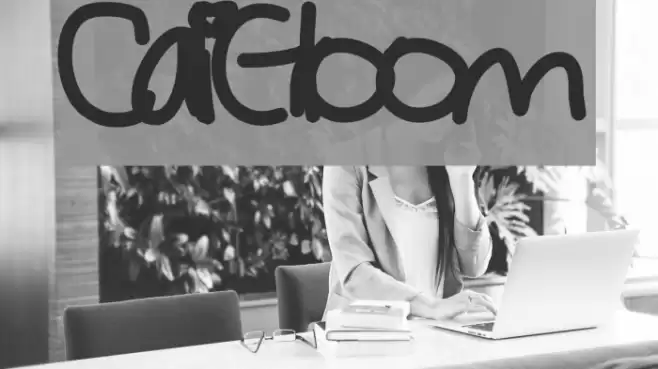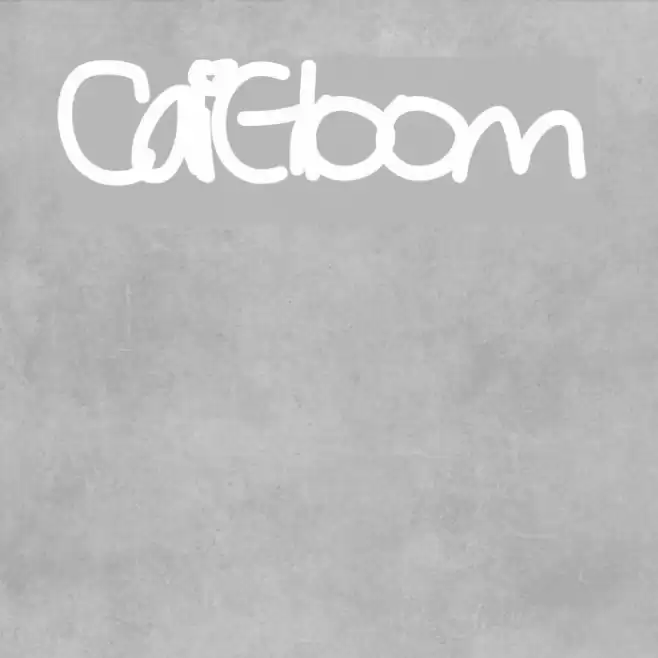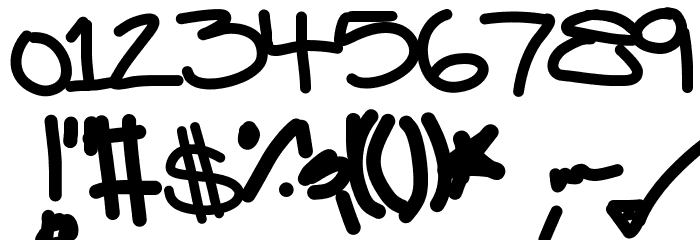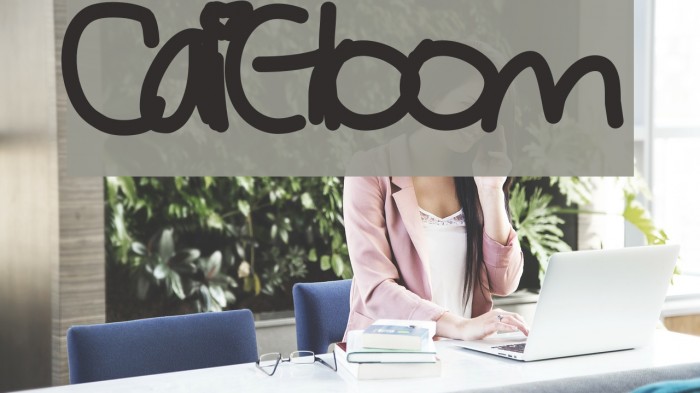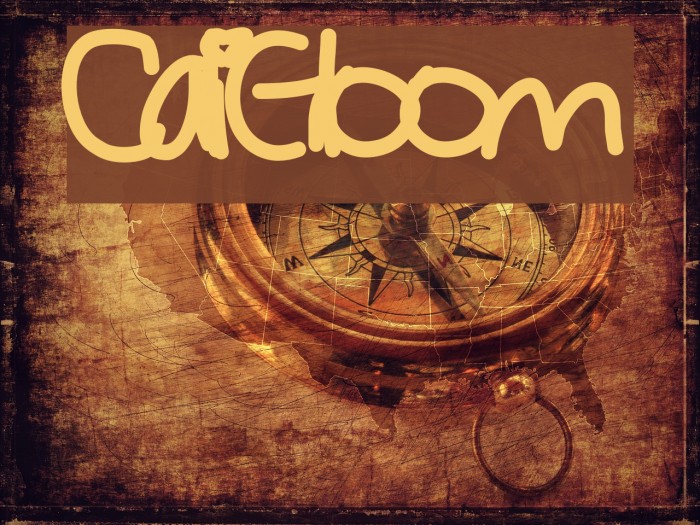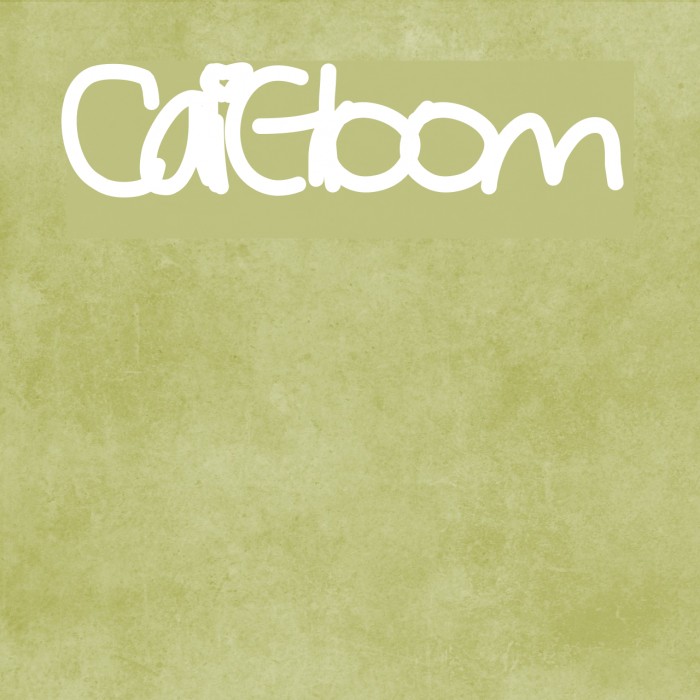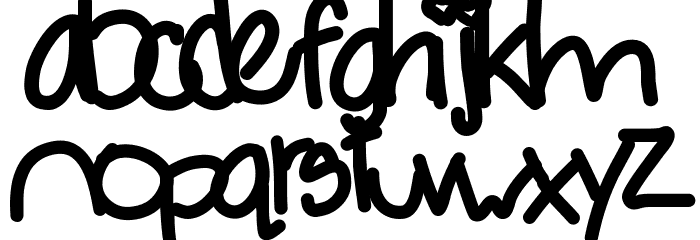
CaliGloom Font
CaliGloom Description
This font features a bold, graffiti-inspired style with a playful and energetic vibe. The letters are thick and rounded, giving them a strong presence on the page. The uppercase and lowercase letters maintain a consistent flow, with some characters exhibiting unique, artistic flourishes. The numbers and special characters follow the same bold and expressive design, making the font suitable for creative and informal applications. Its hand-drawn appearance adds a personal touch, making it ideal for projects that require a casual and dynamic feel.
A bold, graffiti-inspired font with a playful and energetic style from Uncategorized fonts.
- Proposed Projects: Ideal for street art designs, urban-themed posters, music album covers, and creative branding projects.
- Overall Style: Modern, Urban